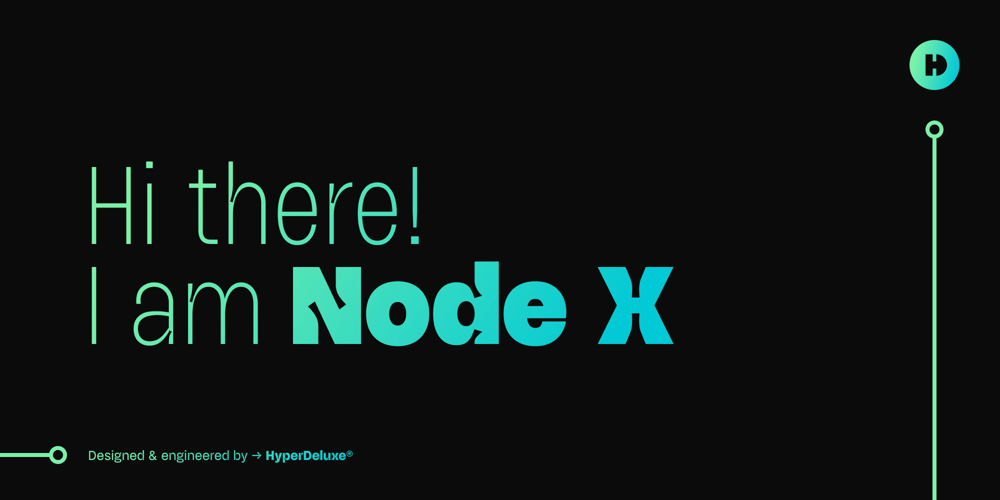
HD Node X Font Family was designed by Daniel Jones and published by HyperDeluxe. HD Node X contains 55 styles and family package options. Welcome to the world of HD Node X, part of the ever expanding Node Superfamily. Comprising of 54 styles or a single 3-axis variable font, Node X is the edgy member of the Node Superfamily. It comes in 3 widths and 9 weights along with matching italics, and features an Extreme ink trap that gives a unique and iconic feel to the typeface. The black weights are super impactful, giving an unapologetic in-your-face feel, while the thin weights are delicate and can collaborate well to create a harmony within your design project.Primarily a display font to show off all of the extreme ink trap goodness, Node X also has been engineered to work at smaller sizes making it perfect for offline uses such as logos and posters, or digital usage such as on websites or apps.Node X features all of the nice little touches you expect such as extensive Latin support, arrows, circled and squared numbers, as well as alternates for key characters.